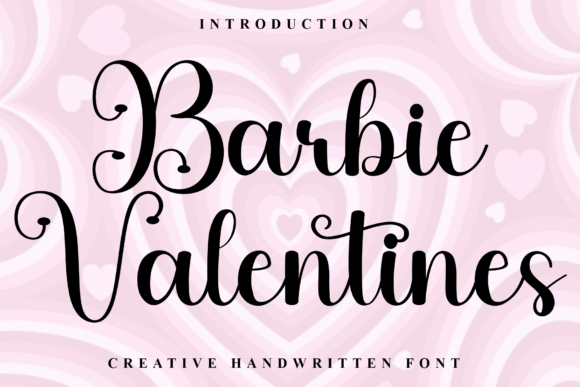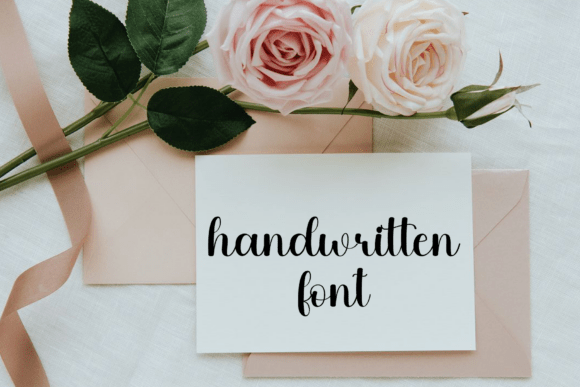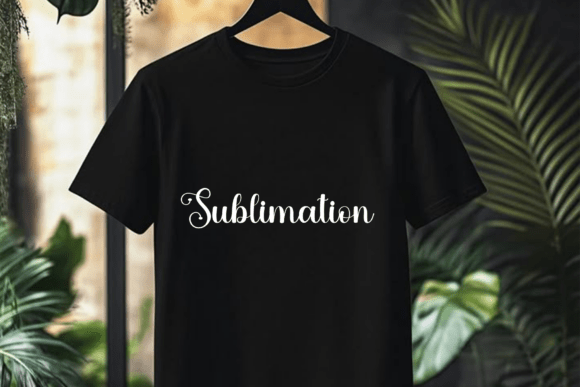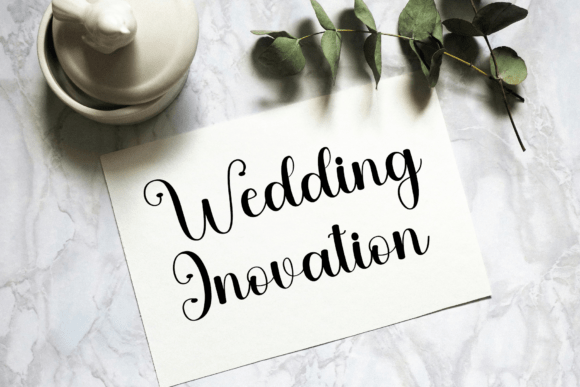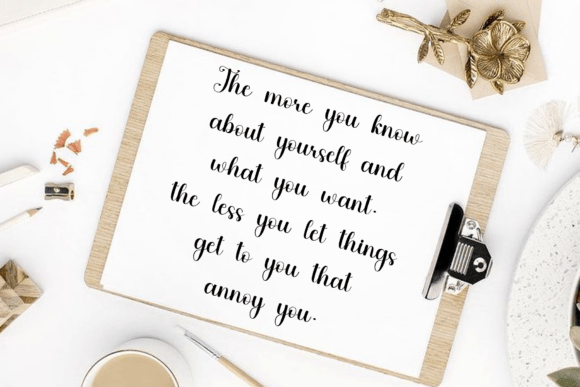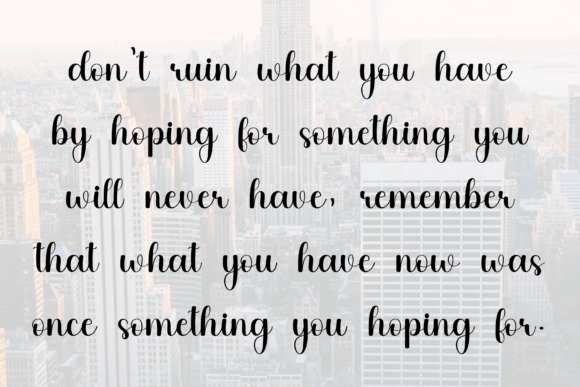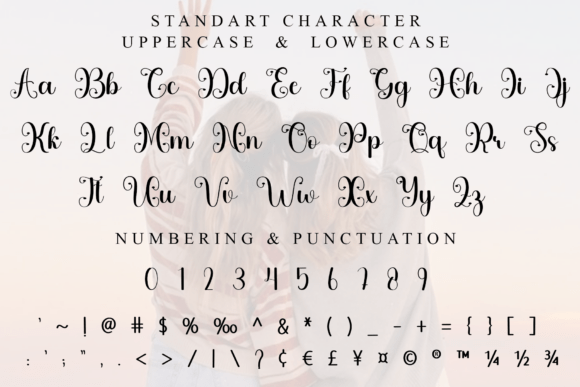
Love is in the Air with the Perfect Font
It’s that time of the year when love is in the air, and creativity knows no bounds. As you start brainstorming ideas for Valentine’s Day projects, you’re probably on the hunt for the perfect font to match the warmth and friendliness of the occasion. This is where the Barbie Valentines Font comes into play, adding a touch of whimsy and romance to your designs.
This charming font is designed to evoke feelings of love and friendship, making it a must-have for personal projects, invitations, and social media graphics. With its round, playful strokes and hand-drawn aesthetic, the Barbie Valentines Font is a valuable addition to any designer’s toolkit, allowing you to create unique and eye-catching designs that stand out from the crowd.
Barbie Valentines Font Key Features
- Font Family: Barbie Valentines is a custom, hand-drawn font designed for Valentine’s Day and romantic themes.
- Unique Characteristics: The font features cursive and script styles with swashes, flourishes, and elegant connections, making it perfect for romantic and whimsical designs.
Barbie Valentines Font Review
I recently had the chance to work with the Barbie Valentines Font and here’s my honest take on it.
- ✨ Beautiful cursive script: The font has a lovely, flowing feel that’s perfect for Valentine’s Day and other romantic occasions.
- ✨ Unique and playful: The Barbie Valentines Font has a distinctive charm that’s sure to stand out in your designs.
- ✨ Easy to use: The font is relatively easy to work with, even for those who are new to font design.
- ⚠️ Limited character set: The font is primarily designed for use with English text, which may limit its usability for other languages.
- ⚠️ Not ideal for body text: While the font is perfect for headlines and titles, it may be difficult to read for extended periods of body text.
I’d say the Barbie Valentines Font is a great choice for designers looking to add a touch of romance and whimsy to their projects. While it may not be the best choice for every design, it’s definitely a valuable addition to any font collection.
The Barbie Valentines font is perfect for adding a touch of romance and whimsy to your designs. Use it for: